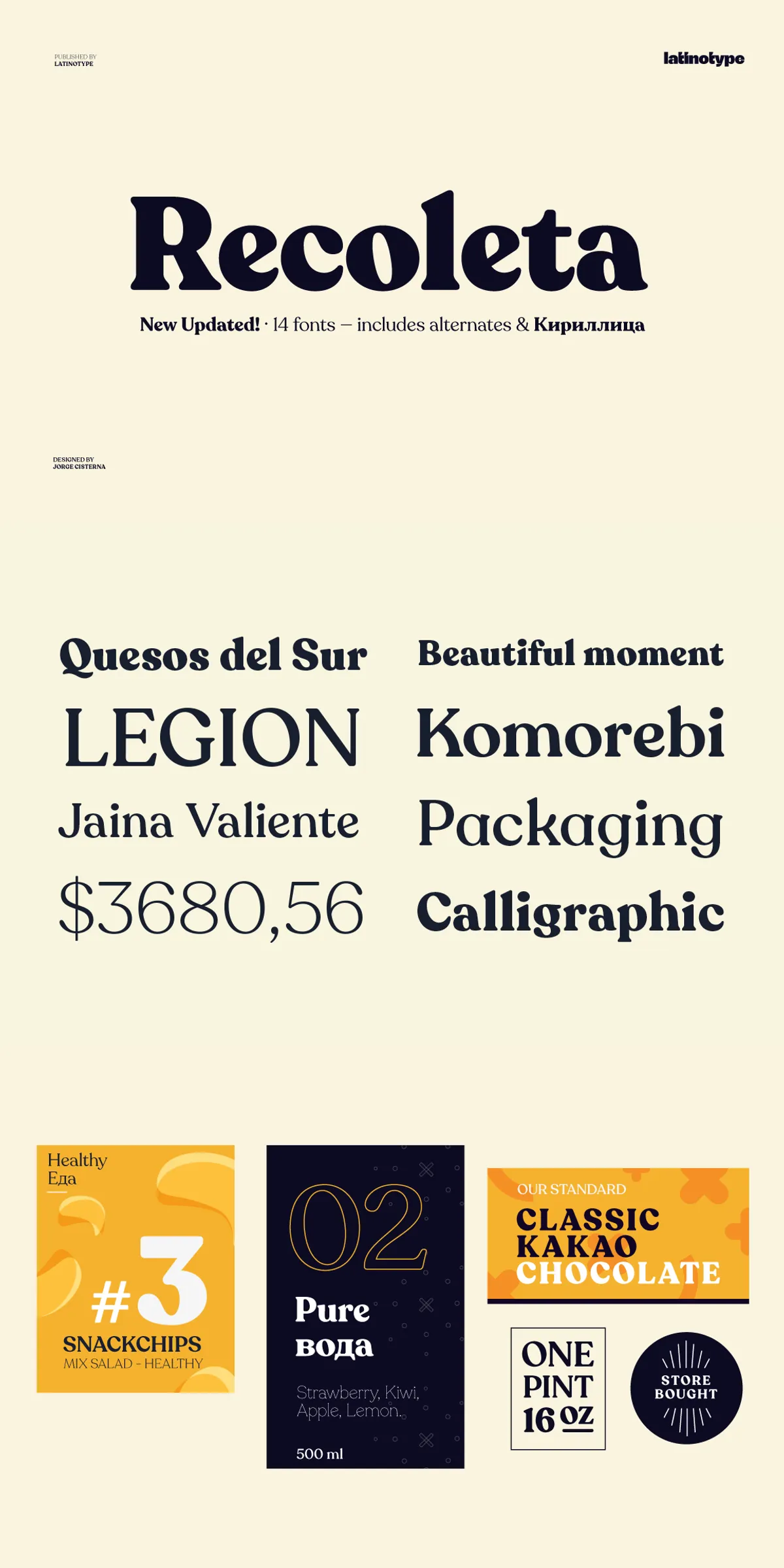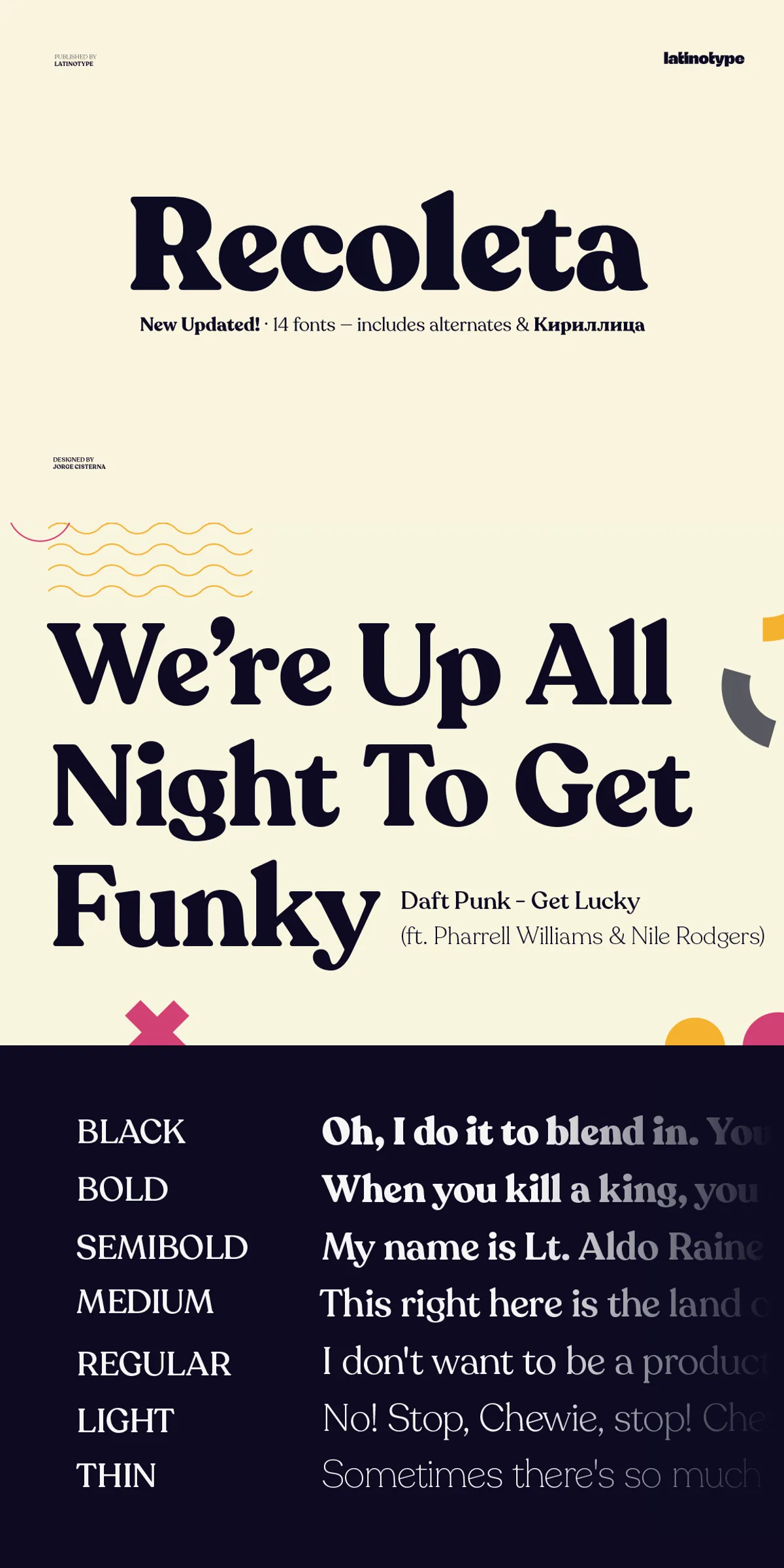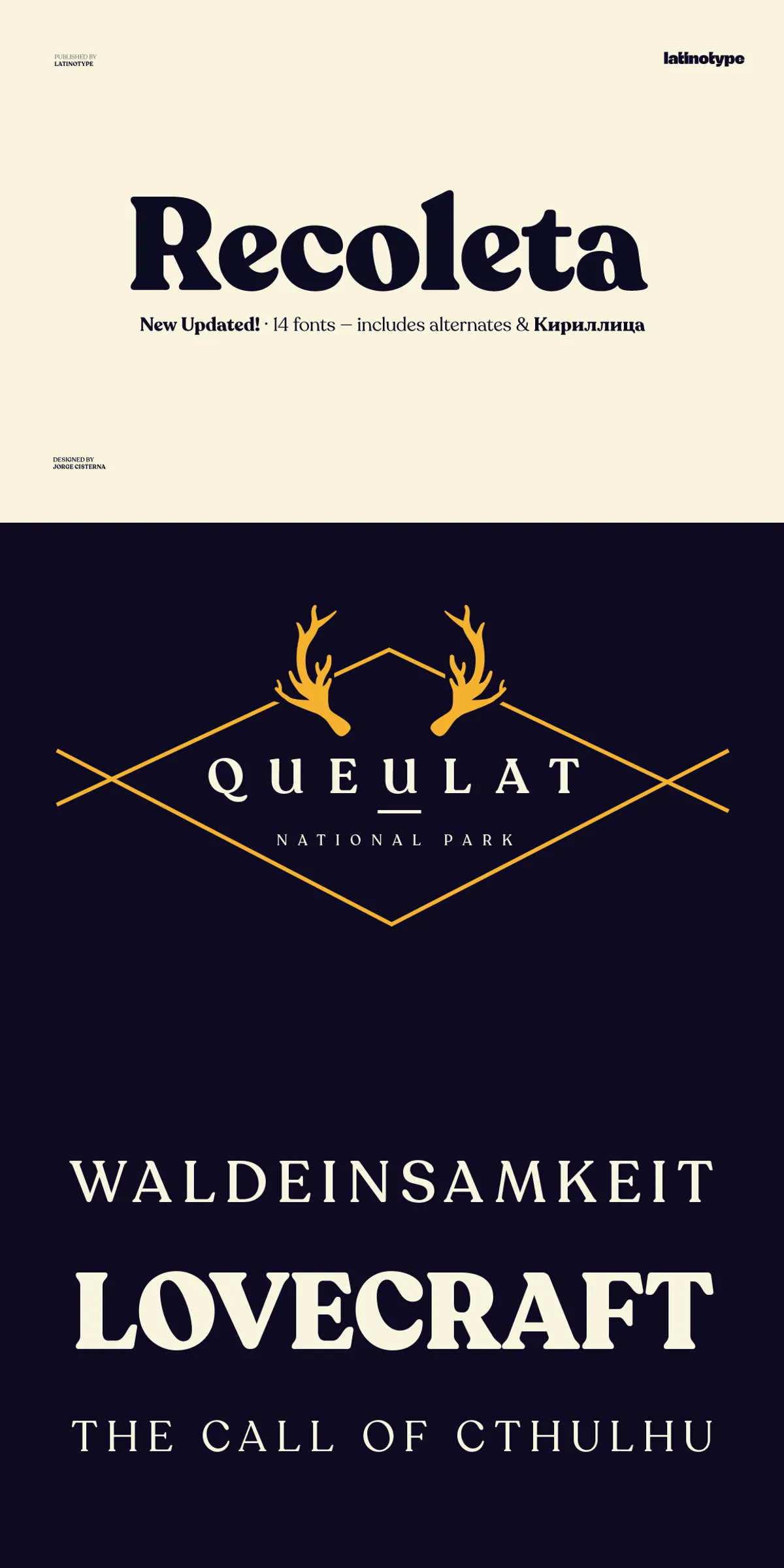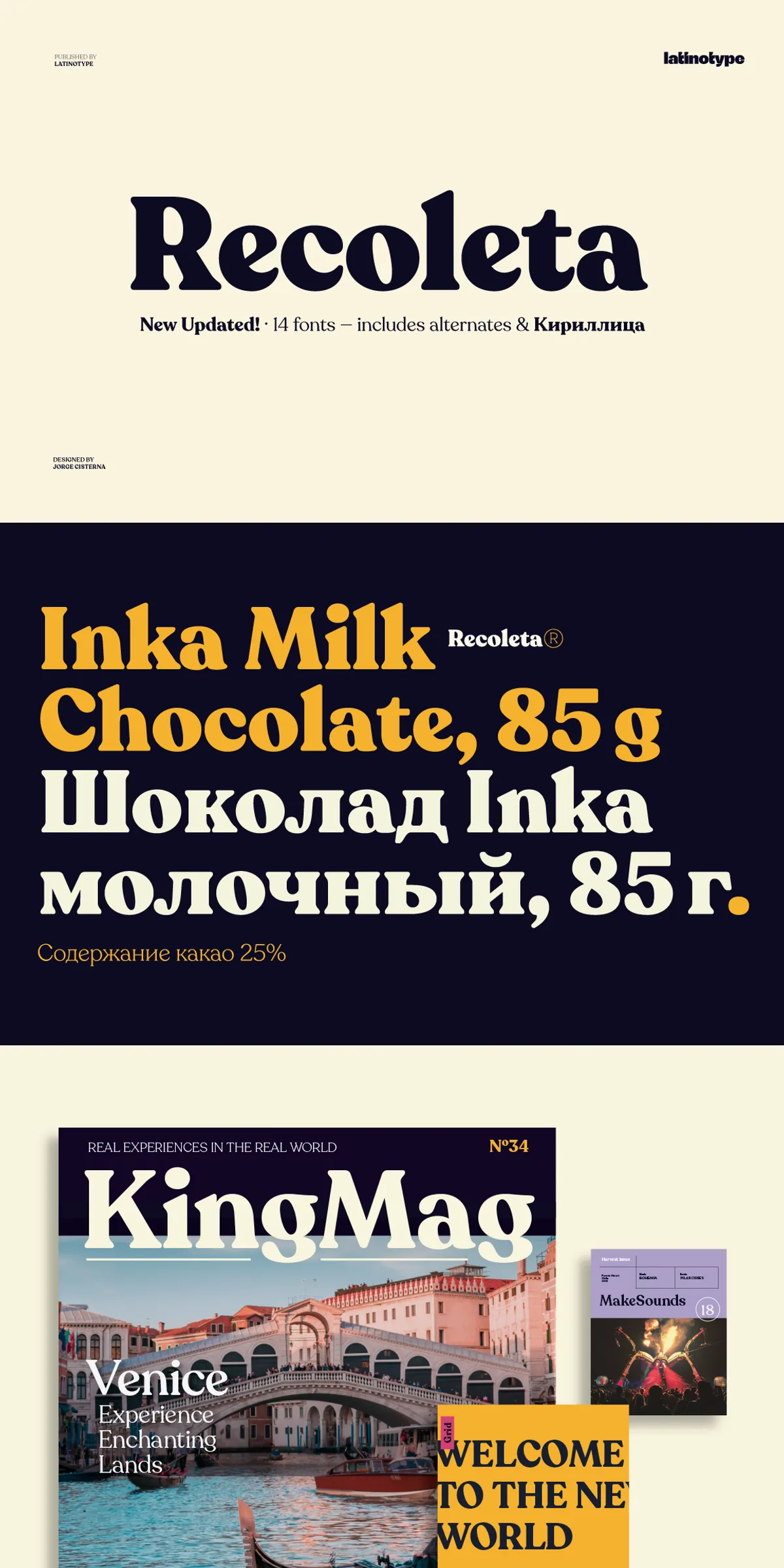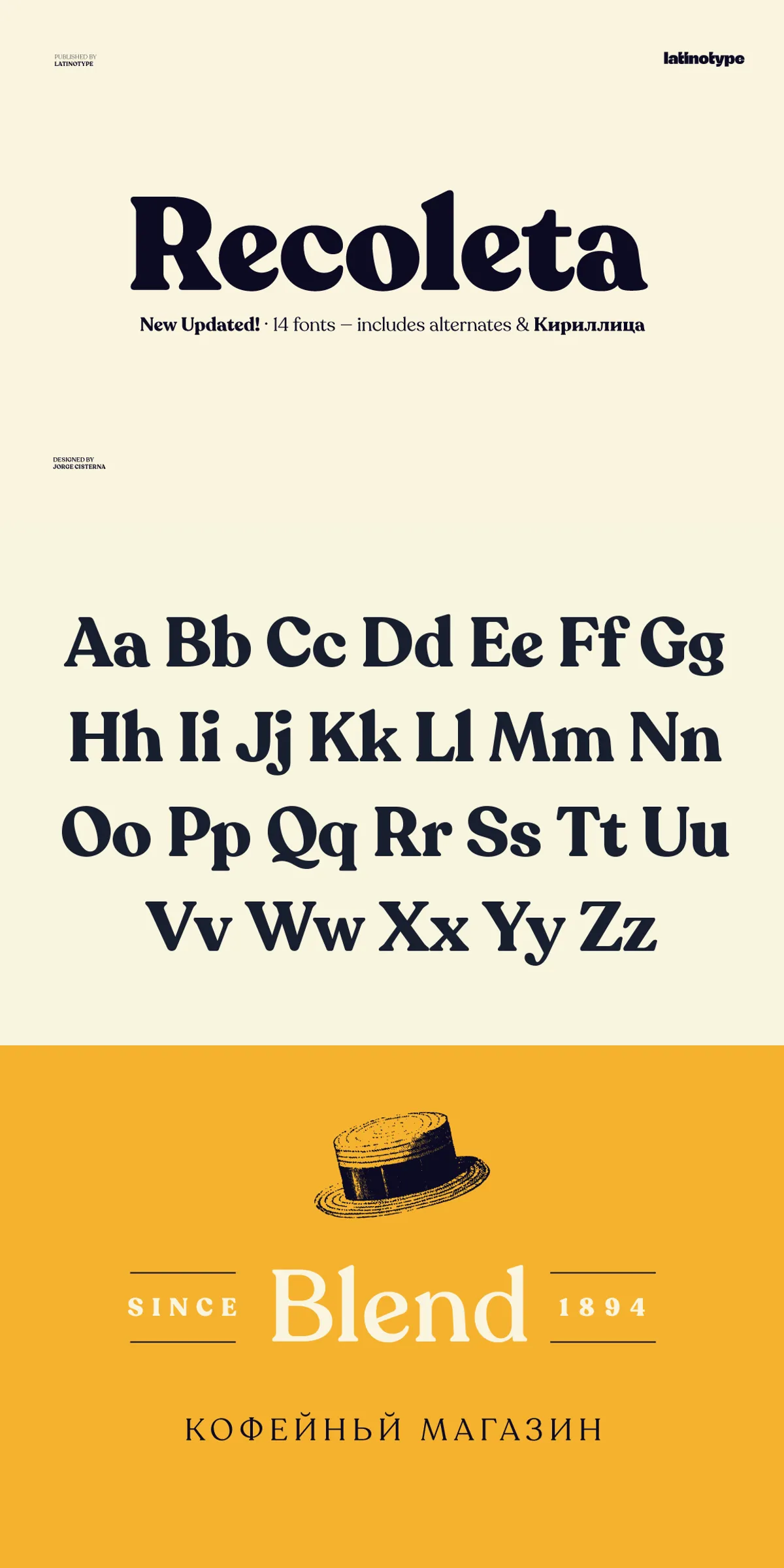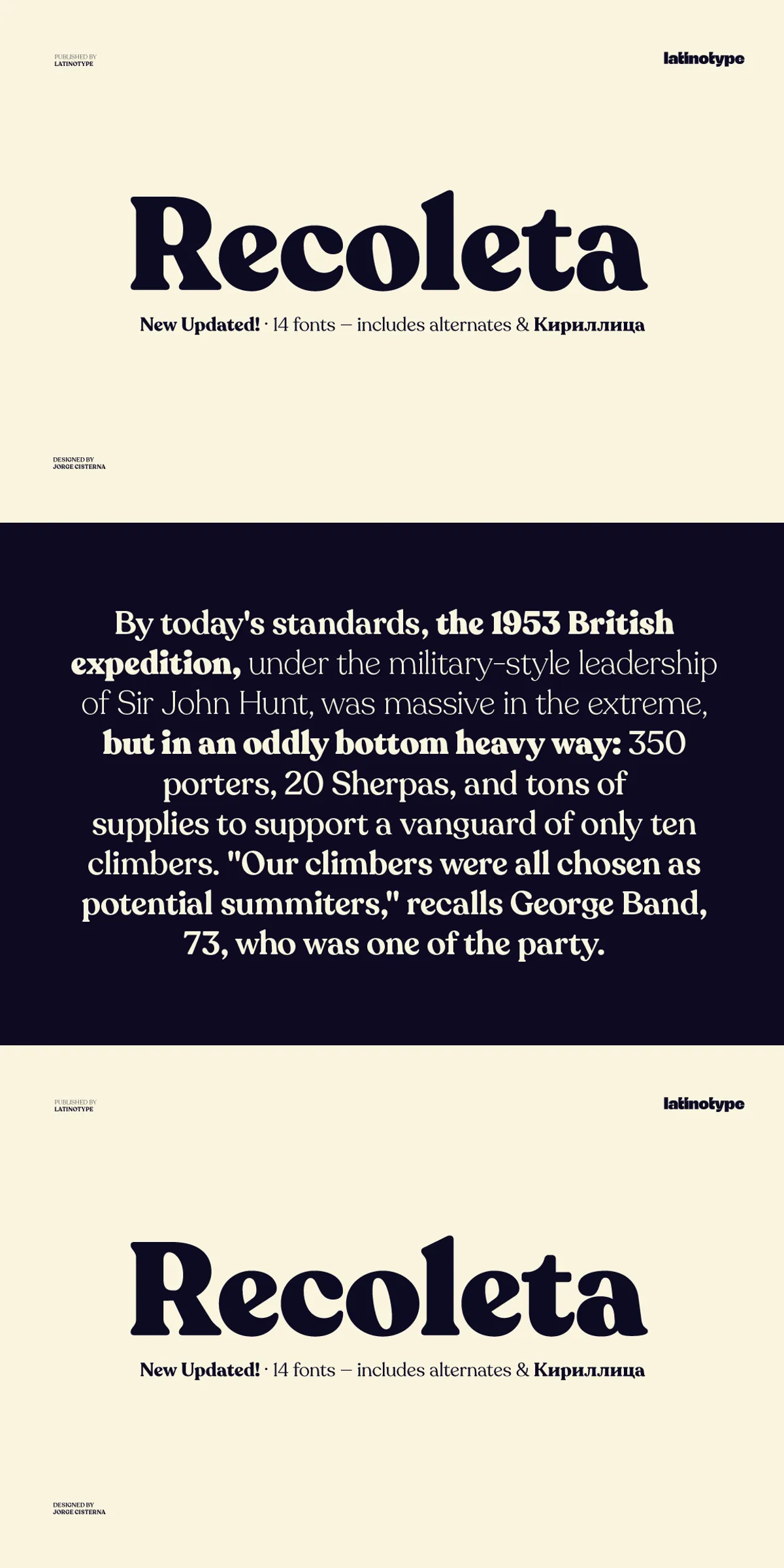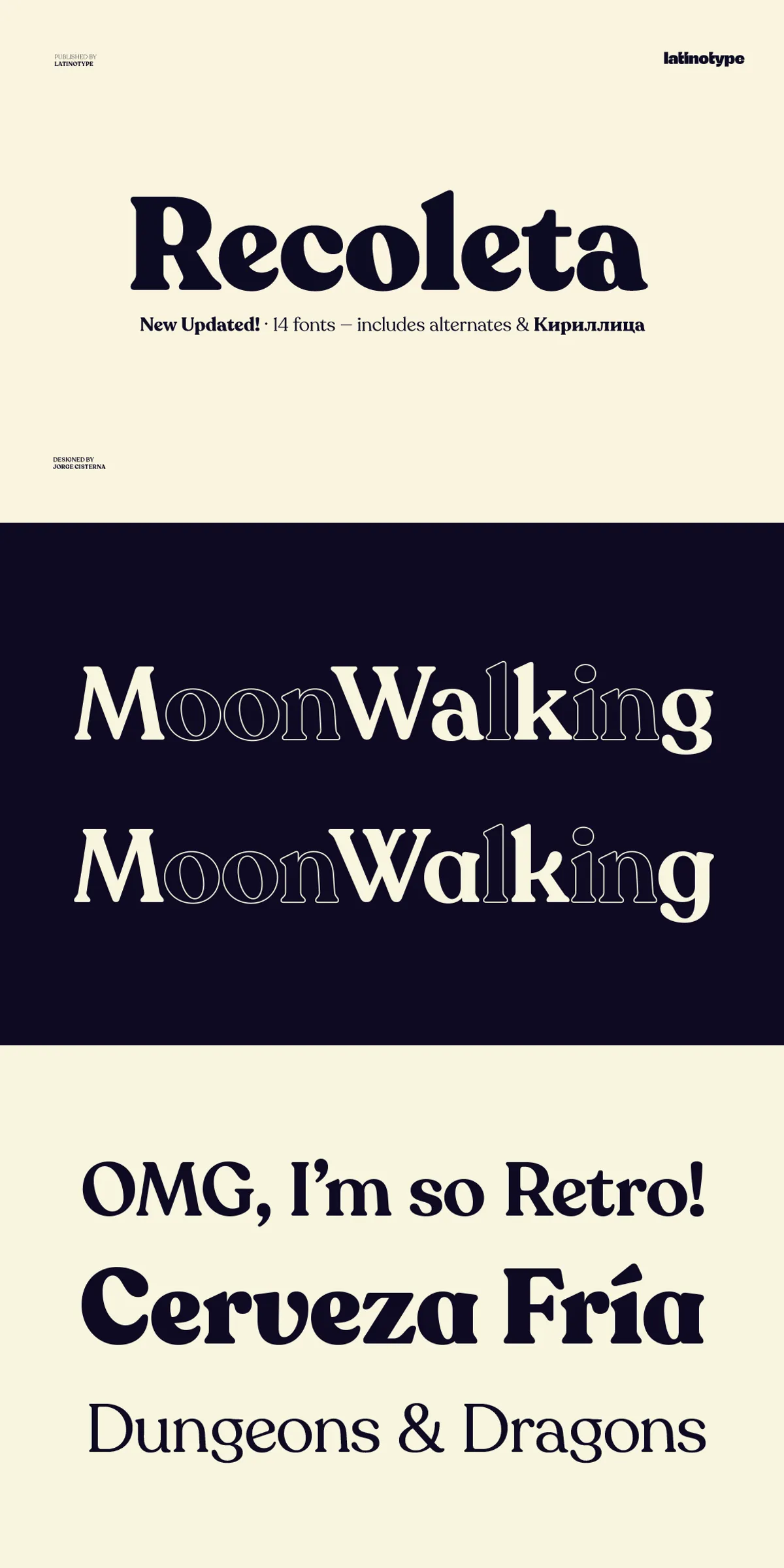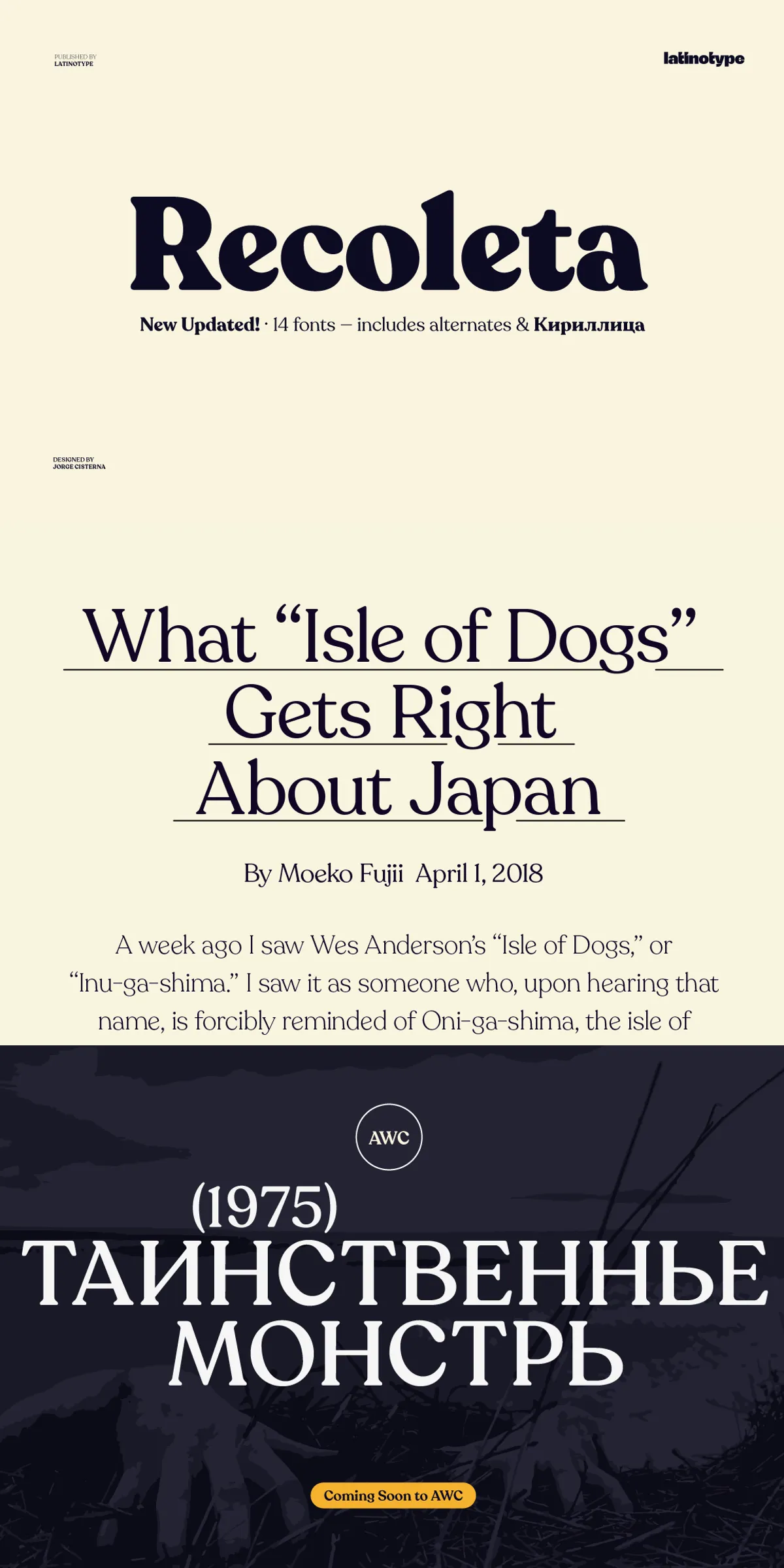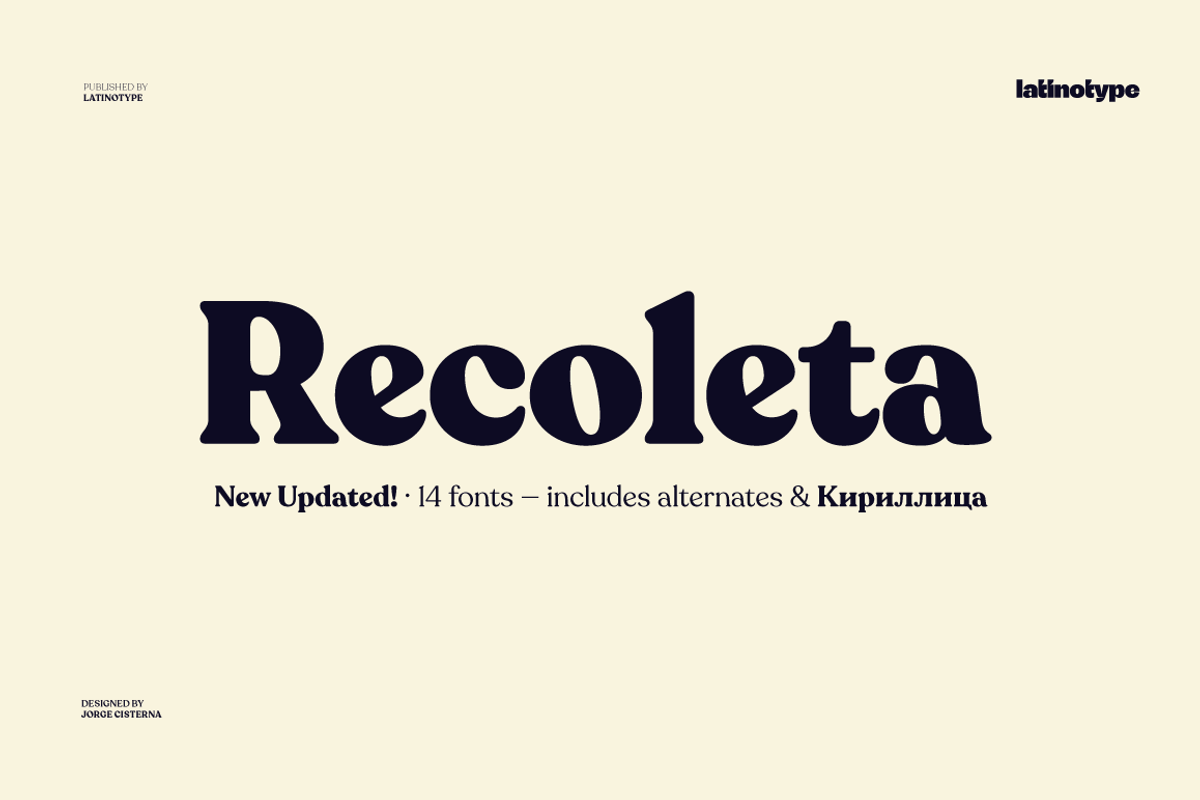
Step into the golden era of typography with Recoleta—a thoughtfully crafted serif font family that reimagines the essence of 1970s design with a contemporary edge. Inspired by the soft curves of Cooper and the dynamic angles of Windsor, Recoleta blends nostalgic charm with modern precision. Each letterform is a tribute to timeless design, reassembled with clarity, balance, and expressive versatility for today’s creative landscape.
Elevate Your Design with 10 Weights and Infinite Customization
Recoleta isn’t just a single font—it’s a complete typographic ecosystem. With a full range of 10 weights, from delicate Light to bold Ultra, you gain the ability to control typographic contrast like never before. Use the lighter weights for clean, readable body text in magazines, websites, or packaging, while the heavier weights explode with energy in headlines, posters, and brand identities.
With over 150 stylized alternates built-in, Recoleta gives you the freedom to craft a truly unique visual identity. Swap out basic characters for elegant flourishes, custom ligatures, or alternate endings to give your logo, business card, or social media post a one-of-a-kind signature. No two designs need to look alike—your creativity is the only limit.
Powerful Language Support for Global Design
Designed for a worldwide audience, Recoleta now includes full Russian Cyrillic character support—a powerful upgrade that expands its reach for international brands, publishers, and digital creators. Whether you’re designing a product label for Moscow, a promotional campaign in St. Petersburg, or a multilingual website, Recoleta delivers consistent, authentic typography across languages and scripts.
Perfect for Branding, Editorial, and Digital Experiences
Recoleta is engineered to adapt across countless design contexts. Its balanced proportions, generous spacing, and elegant serif details make it a standout choice for:
- Brand Identity & Logos: Create a memorable first impression with a font that feels both familiar and fresh.
- Editorial Design: Ideal for book covers, fashion editorials, magazine layouts, and long-form content that demands readability and beauty.
- Advertising & Packaging: Use for product packaging, billboards, and posters where impact matters—every character commands attention.
- Wedding & Event Invitations: Infuse your special moments with a vintage yet modern elegance that feels personal and polished.